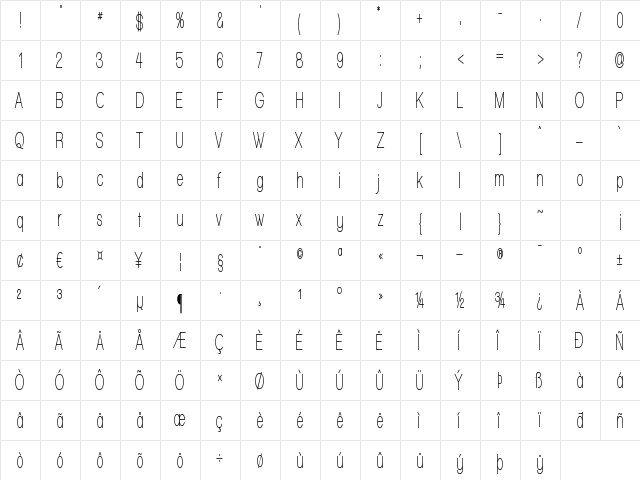
Walkway UltraCondensed Semi Regular
Design Context for Walkway UltraCondensed Semi Typeface
Walkway UltraCondensed Semi is a composed and adaptable typeface that performs quietly and consistently across a wide range of design contexts. The condensed width makes it efficient for tight spaces without sacrificing legibility.
Pro Tip: Use Walkway UltraCondensed Semi in both headline and body roles to test its range before committing to a single application.